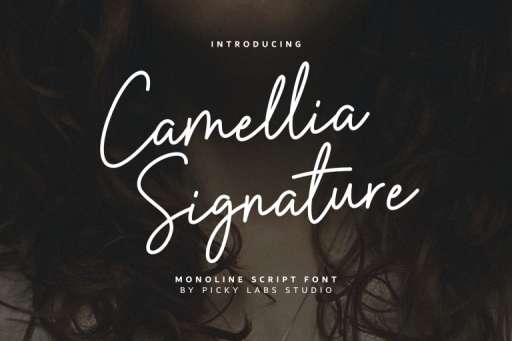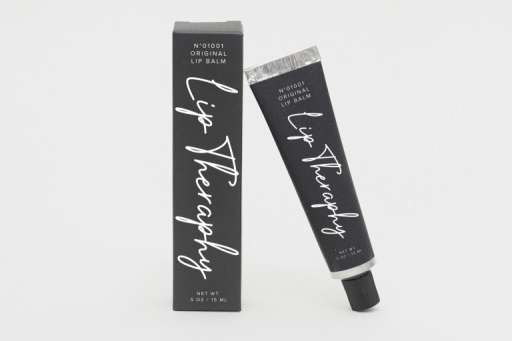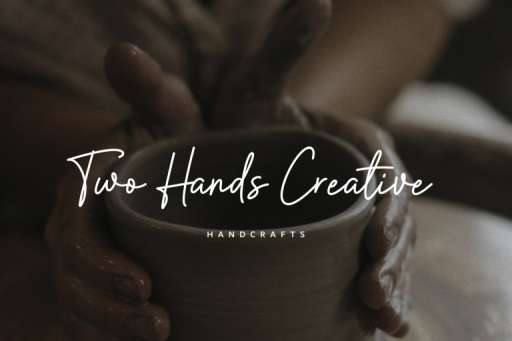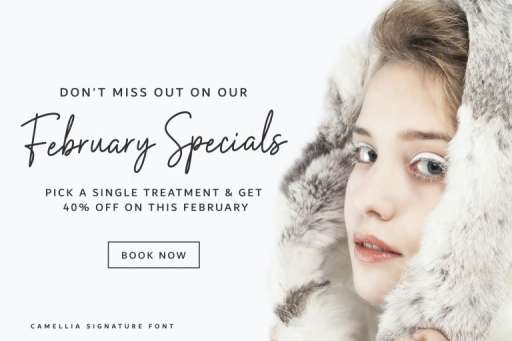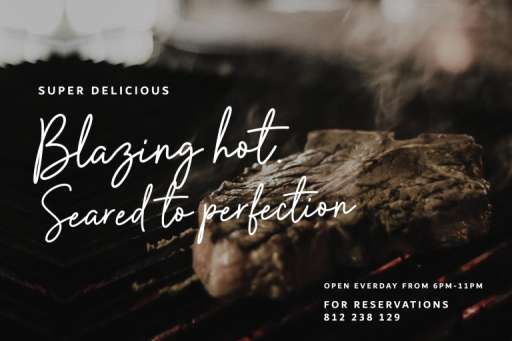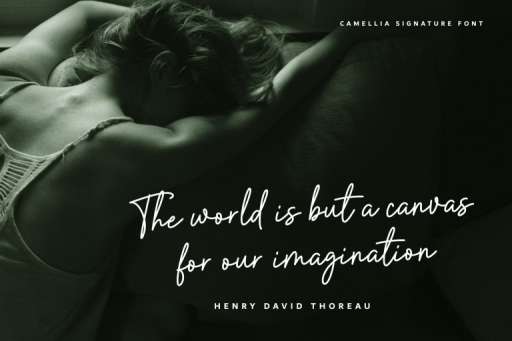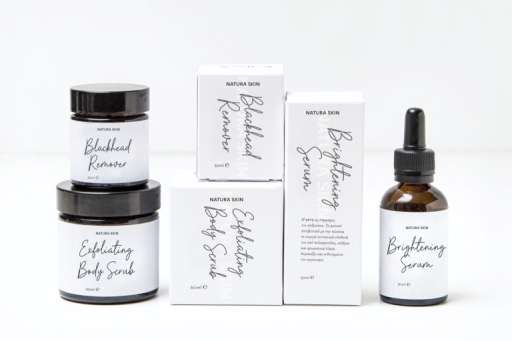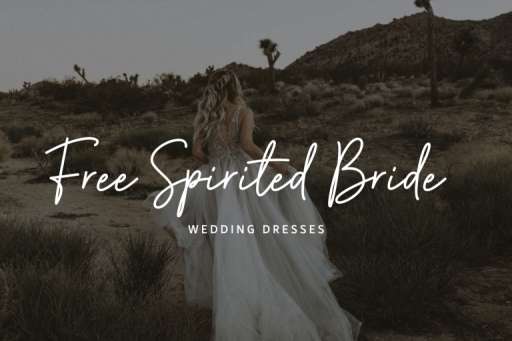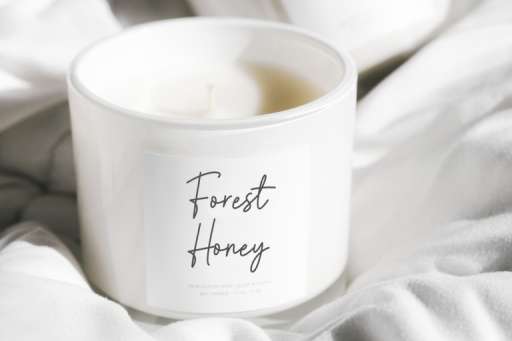
Camellia Signature Font
Camellia Signature – Signature Business Font
Introducing the new Camellia Signature font a feminine type signature with a monoline script that you can use to perfect your design.
Camellia Signature, this Typeface is exactly what you think it is. Signature Typeface for branding & advertising. Whether you’re creating a logo, a watermark for a photographer/artist, or creating a stylish ad campaign, this Typeface is an incredible addition to your font library.